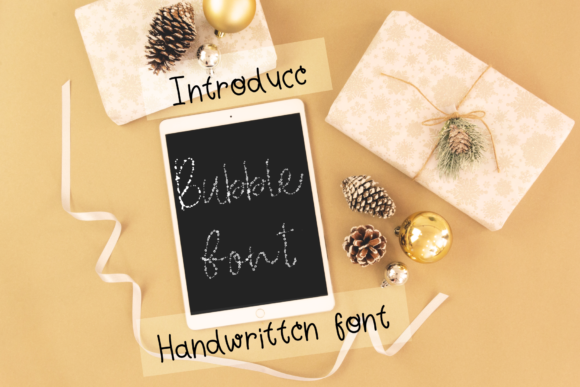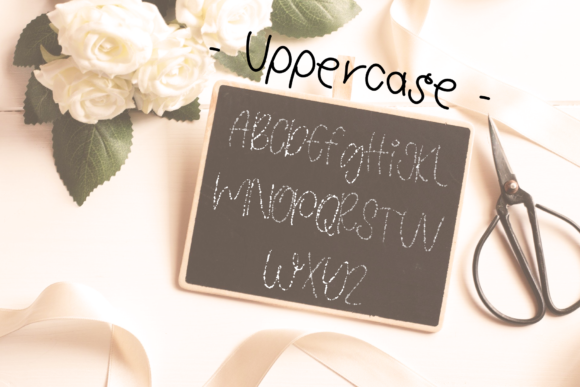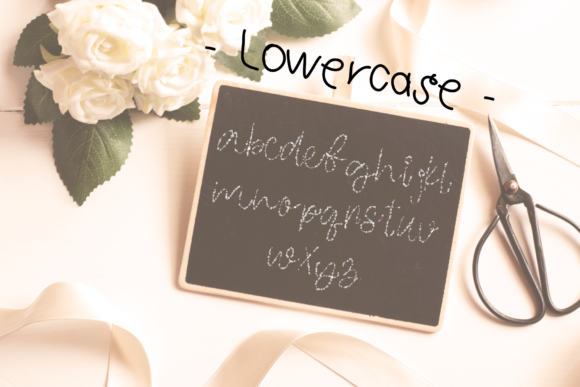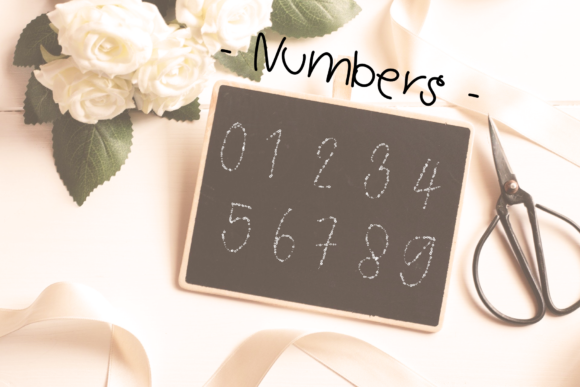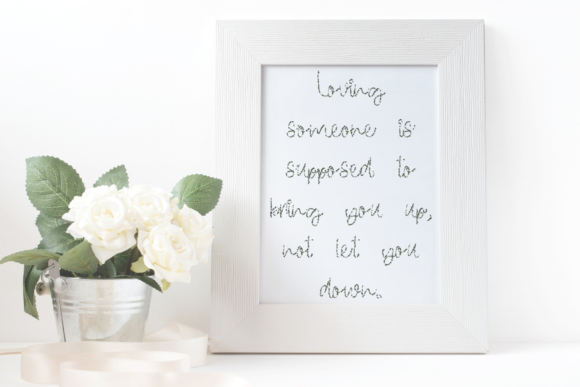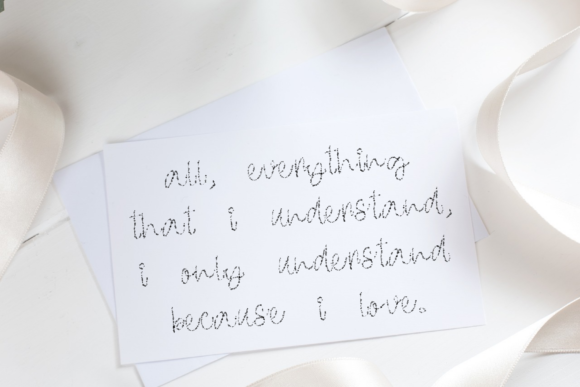
Bubble Font
About Bubble Font
Bubble is a fun and quirky handwritten font. Add this beautiful font to each of your creative ideas and notice how it makes them stand out!